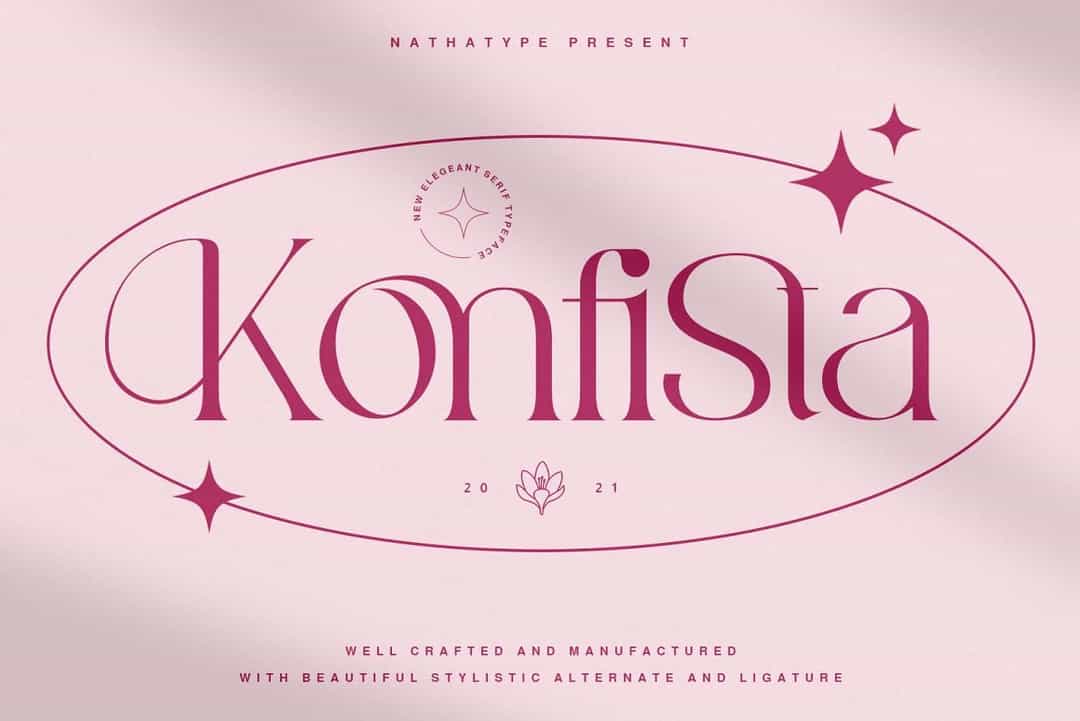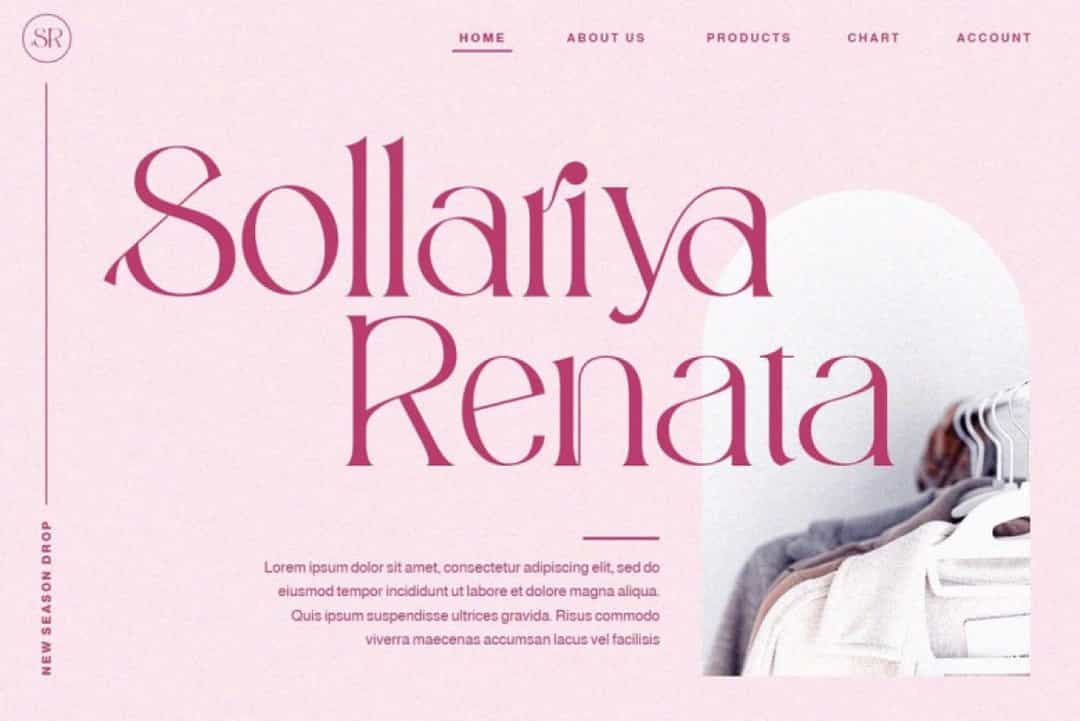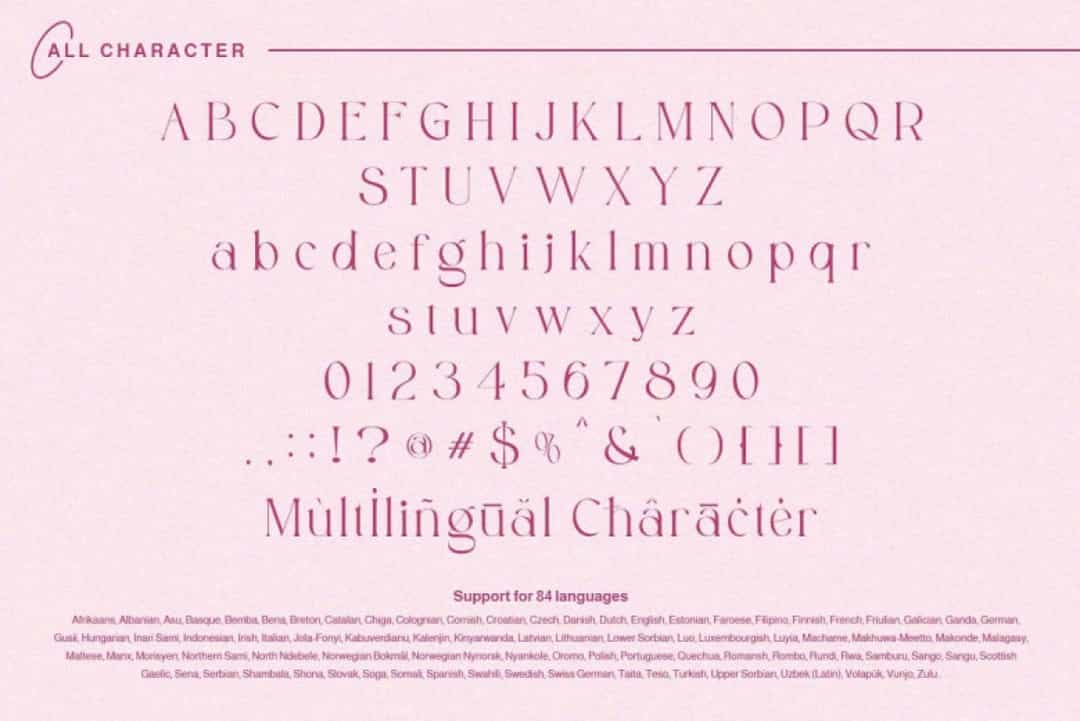
Konfitsta is one of the most elegant serif fonts ever created, providing the ideal balance between body copy and headings. Let it add some elegance and modern flair to your brand by choosing Konfista as one of your font options.